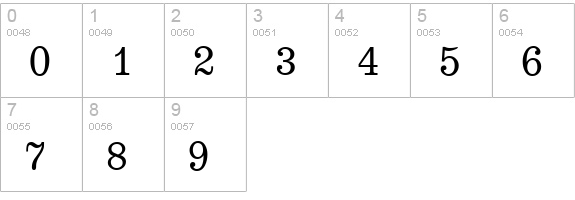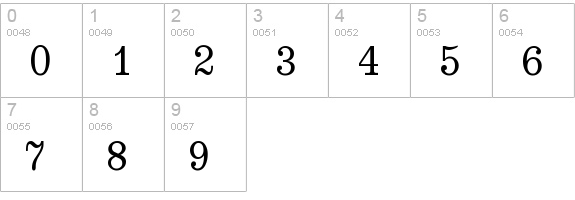
E710-Roman-Regular is the standard, neutral variant in the E710 typeface family \xE2\x80\x94 well suited to general body text, paragraphs, and standard typographic work.
E710-Roman-Regular font is a classic and versatile typeface that exudes elegance and sophistication. Its clean lines and timeless aesthetic make it a perfect choice for various design projects, from branding to editorial design. The font features a balanced combination of traditional and modern elements, making it suitable for both print and digital applications. One of the best things about E710-Roman-Regular font is that it is available for free download at FontsMarket.com. This means that you can easily access this high-quality font without any cost, making it a valuable addition to your font library. Whether you are working on a personal project or a commercial design, this font offers you the flexibility and creativity you need to bring your ideas to life. With its wide range of glyphs and characters, E710-Roman-Regular font allows you to create stunning typography that stands out and captures attention. Its legibility and readability make it a reliable choice for conveying your message effectively and professionally. Give your designs a touch of sophistication and style with the E710-Roman-Regular font, available for free at FontsMarket.com.